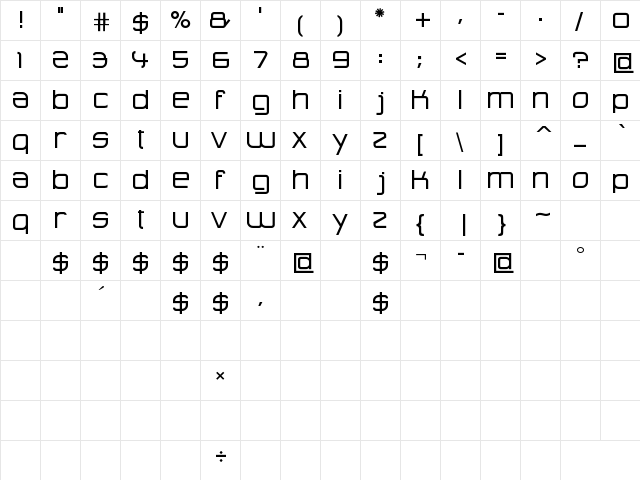
Advanced Architecture Regular
| Designer | Galdino Otten |
Design Context for Advanced Architecture Typeface
Advanced Architecture offers clean, dependable letterforms without strong stylistic allegiance, making it a practical choice for designers who need flexibility.